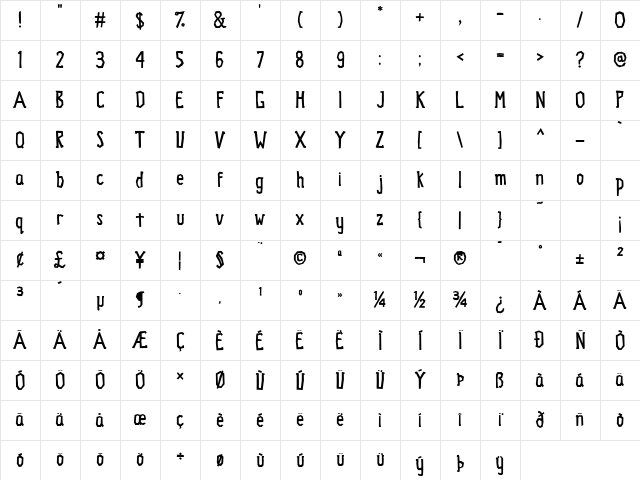
BadCabbageICG Bold
Style: Bold
Design Context for BadCabbageICG
BadCabbageICG is a composed and adaptable typeface that performs quietly and consistently across a wide range of design contexts. Its bold stroke weight gives it real presence on the page.